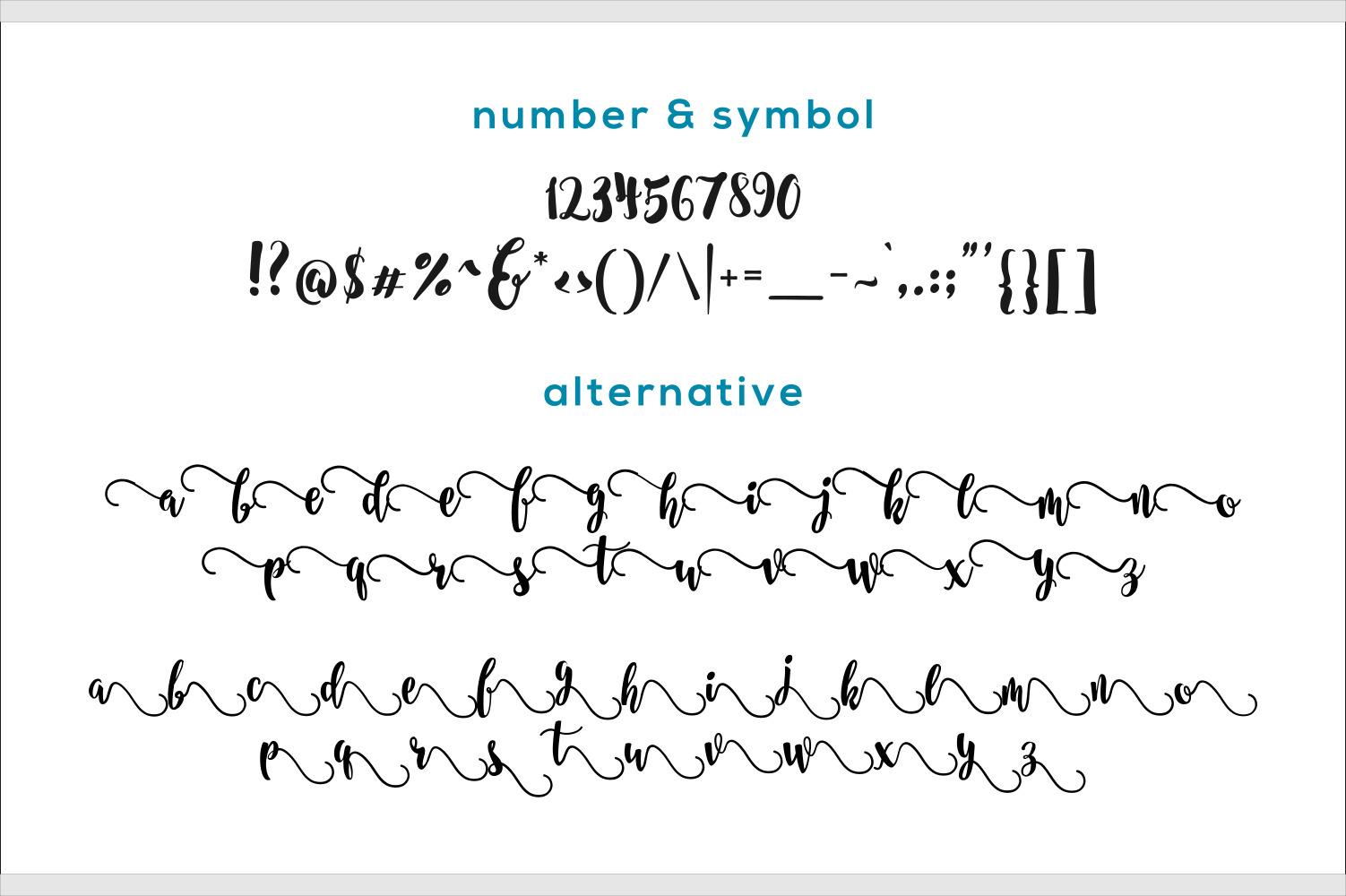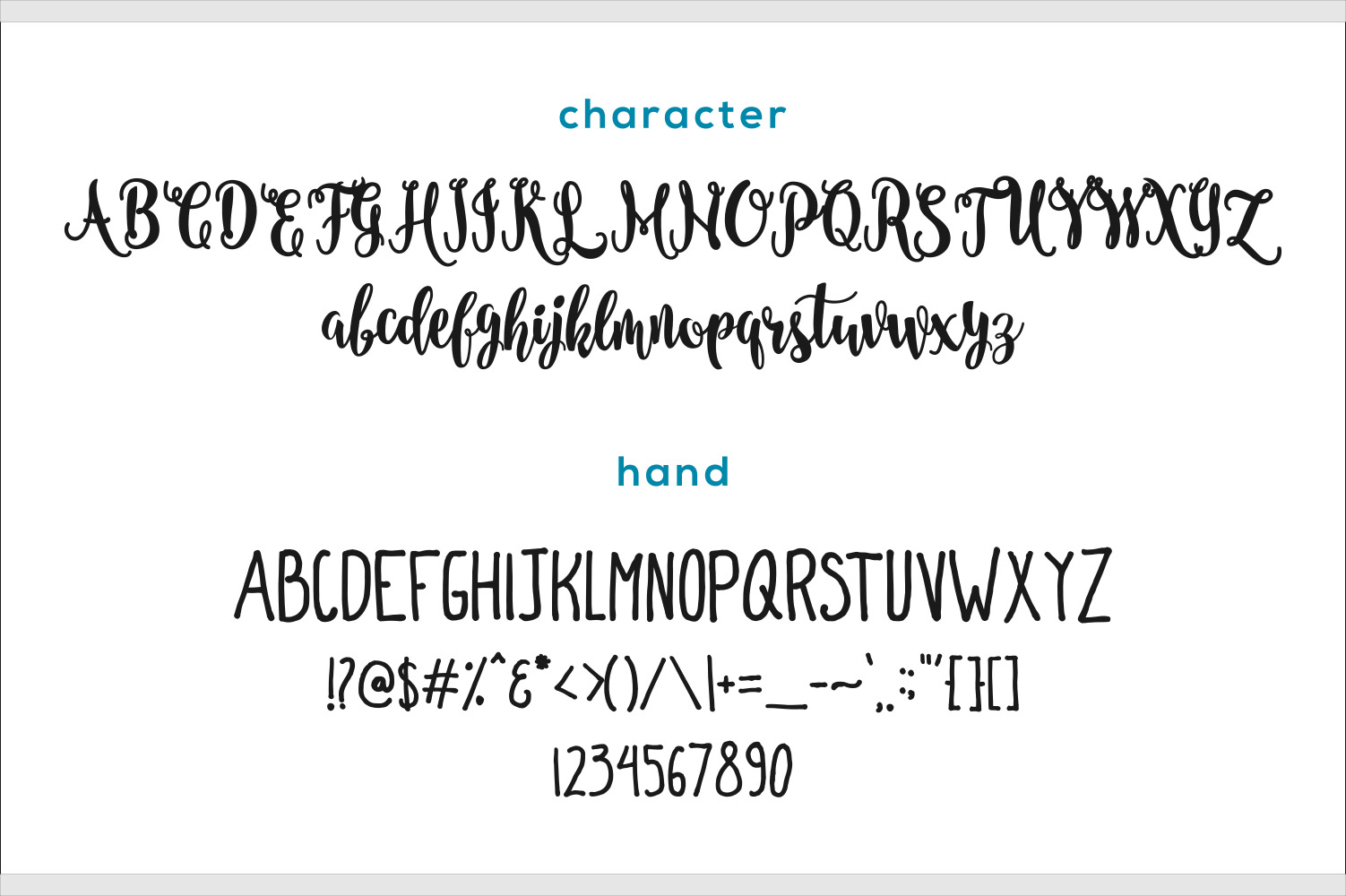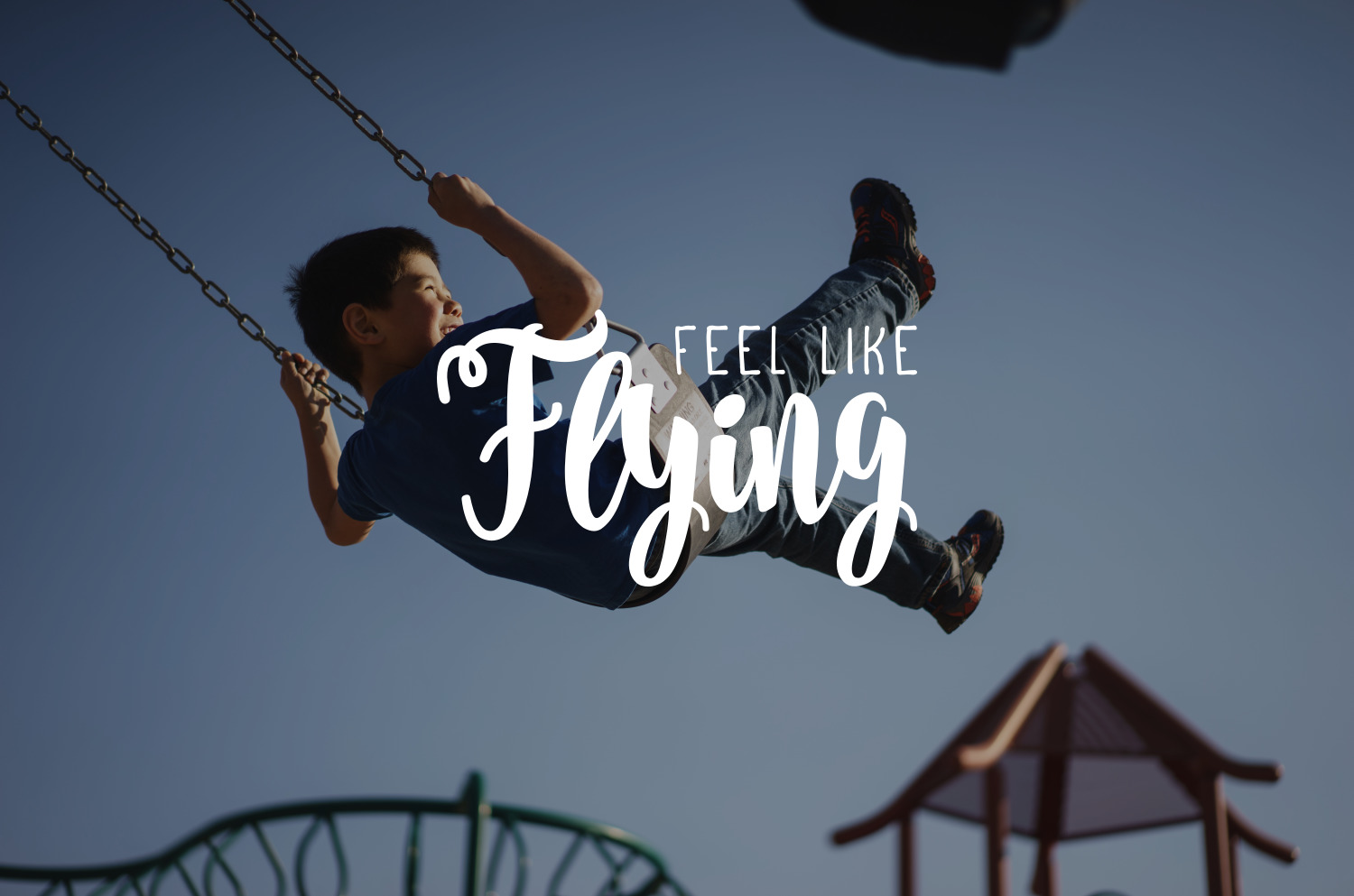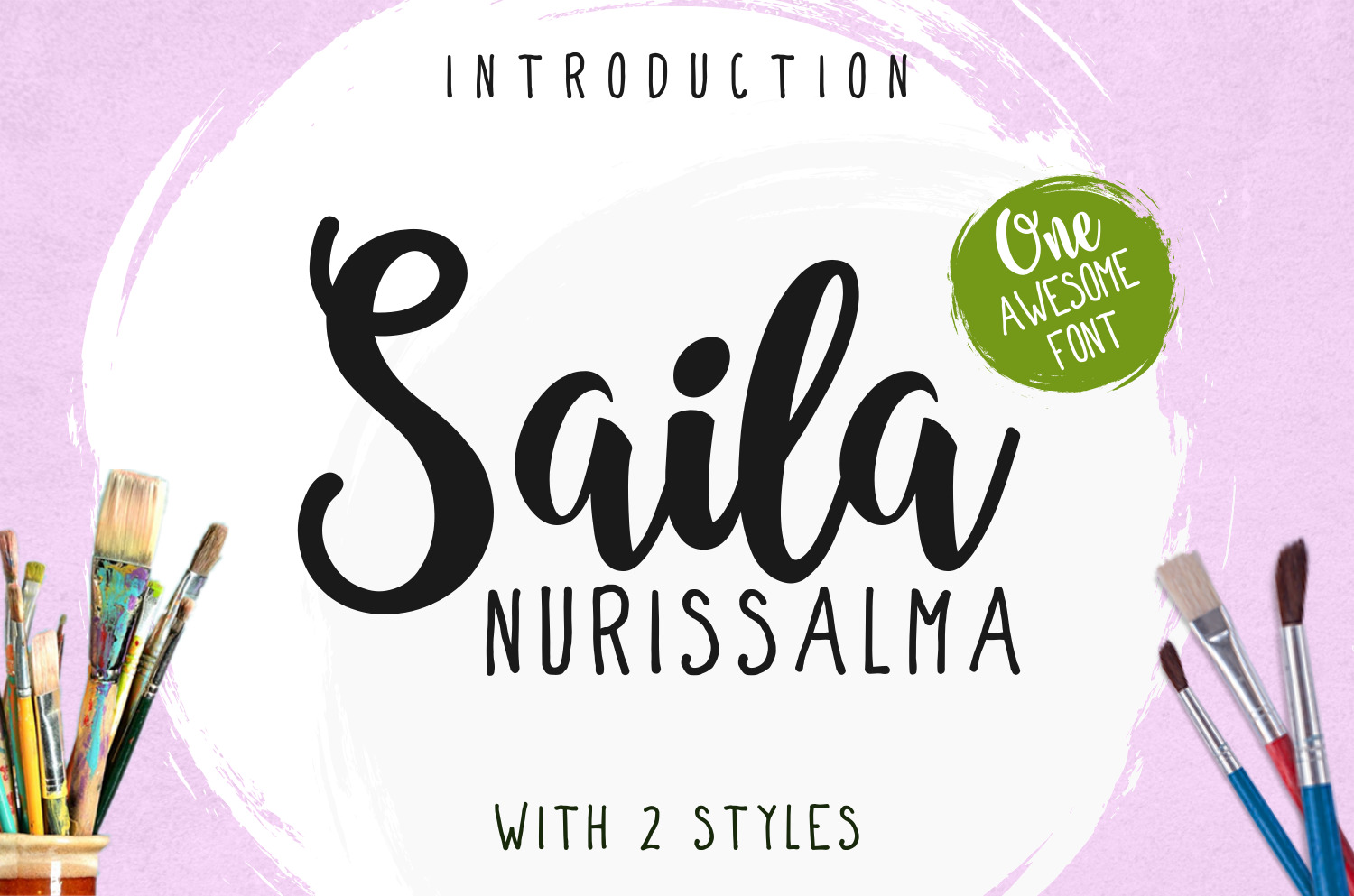
Saila Nurissalma Font
Saila Nurissalma is an exclusive duo typefaces with unique and stylish handwriting script. The two typefaces have a stunning characters set, perfectly kerned and spaced.
This font will be great for logo, invitation, flyer etc